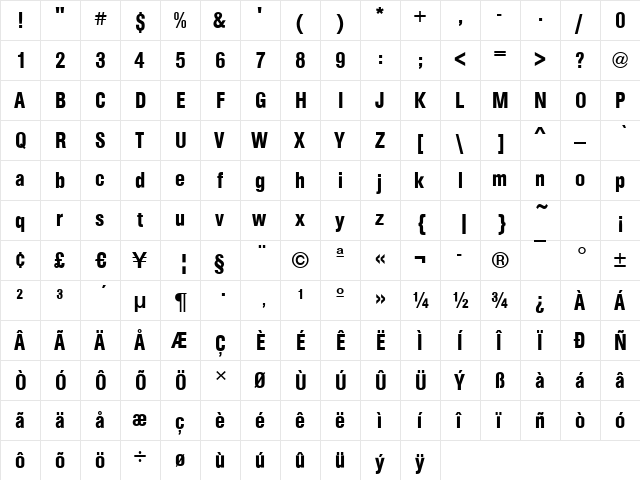
Arezzo-Cd Demi
Design Context for Arezzo-Cd Typeface
Arezzo-Cd takes a measured approach to typography — its balanced proportions and neutral character make it a reliable workhorse for both digital and print work.